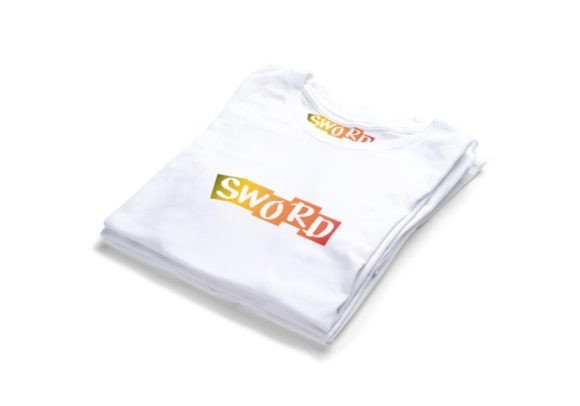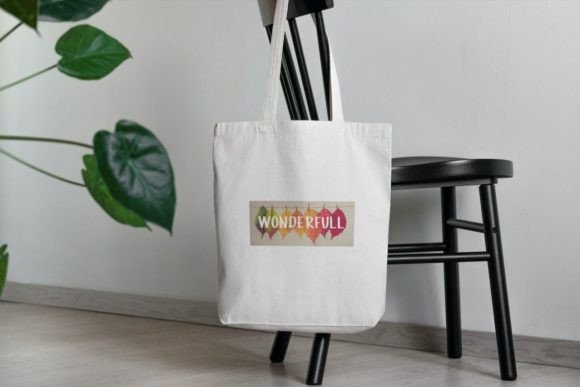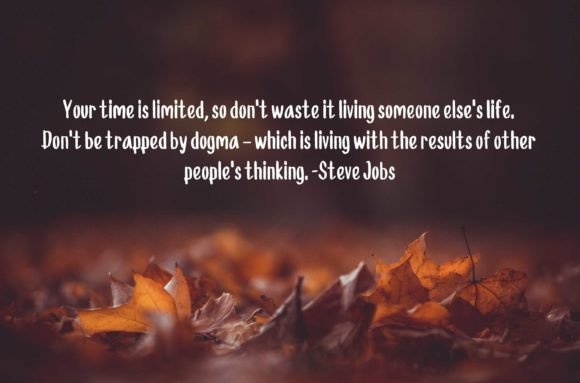
Dredeque Font: Add a Touch of Whimsy to Your Crafty Projects
Are you tired of using the same old fonts in your crafty projects? Look no further than the Dredeque font, a fun and quirky handwritten font that’s sure to add a touch of personality to your designs. In this article, we’ll take a closer look at the Dredeque font, its features, and how you can use it to take your crafty ideas to the next level.
What is Dredeque Font?
Dredeque font is a unique and playful handwritten font that’s perfect for crafty projects. Its quirky and irregular design makes it stand out from more traditional fonts, adding a touch of whimsy and fun to any design. Whether you’re working on a DIY project, creating handmade cards, or designing crafty merchandise, Dredeque font is sure to bring a smile to your face and add a personal touch to your creations.
Features of Dredeque Font
So, what makes Dredeque font so special? Here are just a few of its key features:
- Handwritten design: Dredeque font has a genuine handwritten look that’s perfect for crafty projects.
- Quirky and irregular: Unlike traditional fonts, Dredeque font has a playful, irregular design that’s sure to add visual interest to your projects.
- Easy to read: Despite its quirky design, Dredeque font is still easy to read, making it perfect for use in titles, headings, and body text.
- Versatile: Dredeque font can be used in a wide range of crafty projects, from DIY crafts to handmade cards and merchandise.
How to Use Dredeque Font in Your Crafty Projects
Now that we’ve covered the features of Dredeque font, let’s take a look at how you can use it in your crafty projects. Here are a few ideas to get you started:
- Handmade cards: Add a personal touch to your handmade cards with Dredeque font. Use it to write out messages, titles, or even create custom card fronts.
- DIY crafts: Dredeque font is perfect for DIY crafts, such as wood signs, mason jars, and other decorative items.
- Crafty merchandise: Use Dredeque font to create custom merchandise, such as t-shirts, mugs, and tote bags.
- Paper crafts: Dredeque font is a great addition to paper crafts, such as scrapbooking, journaling, and origami.
Tips for Using Dredeque Font
Here are a few tips to keep in mind when using Dredeque font in your crafty projects:
- Experiment with colors: Dredeque font looks great in a variety of colors, so don’t be afraid to experiment and find the perfect hue for your project.
- Mix and match: Combine Dredeque font with other fonts and design elements to create a unique and eye-catching design.
- Keep it simple: Don’t overcomplicate your design. Dredeque font is perfect for simple, yet effective designs.
In conclusion, Dredeque font is a fun and quirky handwritten font that’s perfect for crafty projects. Its unique design and versatility make it a great addition to any DIY project, handmade card, or crafty merchandise. With its easy-to-read design and playful vibe, Dredeque font is sure to bring a touch of whimsy and personality to your creations. So why not give it a try and see what amazing crafty projects you can create?